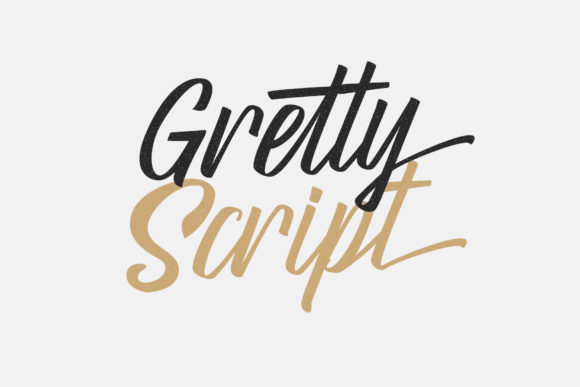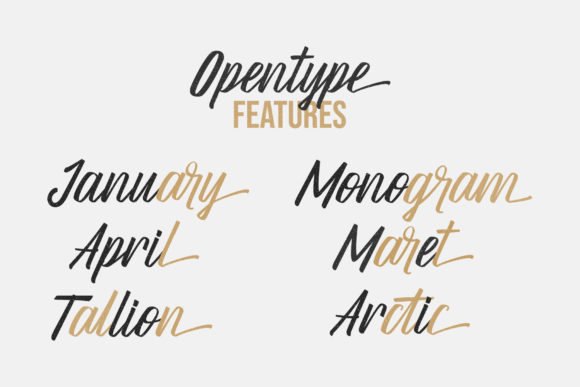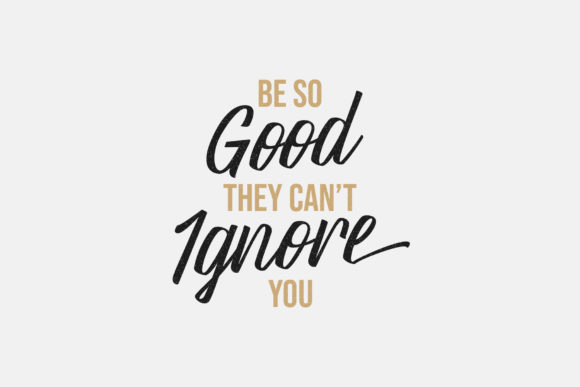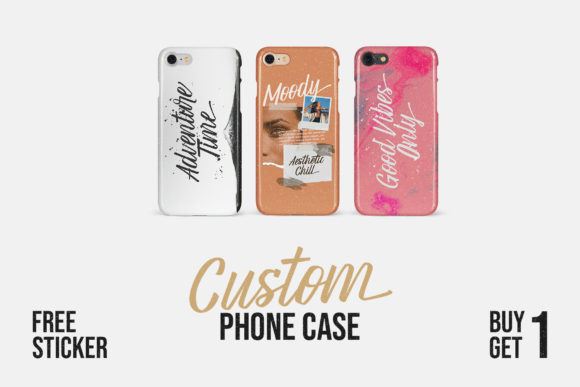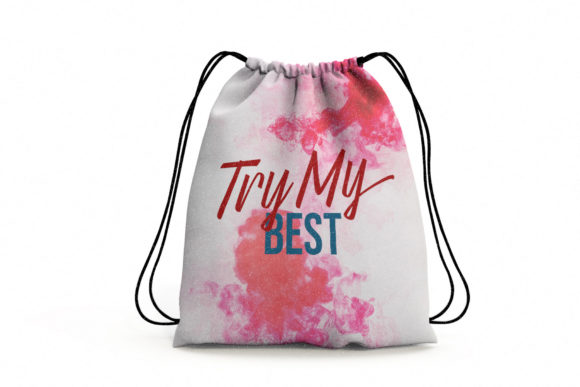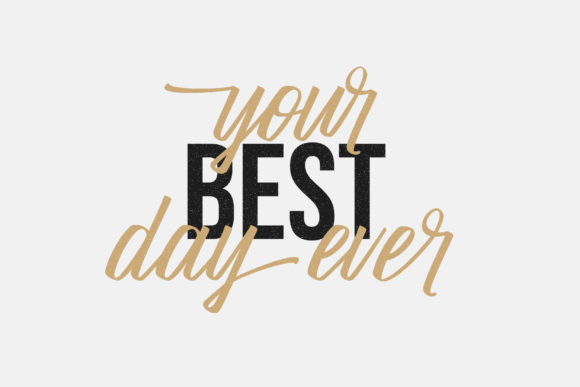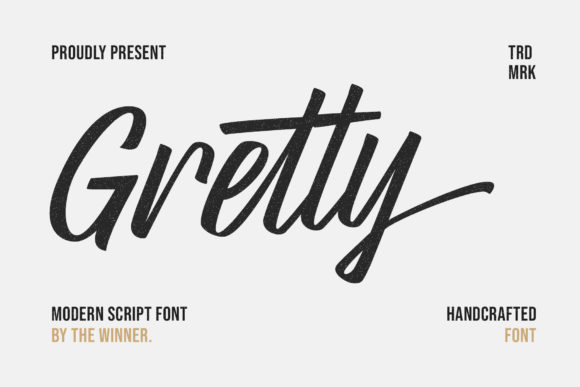
Introducing Gretty Script Font: Elevate Your Designs with Elegance
Are you on the hunt for a font that exudes elegance, sophistication, and a touch of uniqueness? Look no further than Gretty Script Font. This stunning script font is designed to make your designs stand out, whether you’re creating wedding cards, beautiful stationery art, eye-catching social media posts, or any other creative project.
The Story Behind Gretty Script Font
Gretty Script Font was created with the intention of producing a font that is both gorgeous and versatile. Its unique and neat style makes it perfect for a wide range of applications, from formal events to everyday design needs. The font’s spontaneous design ensures that it brings a fresh and modern touch to any project.
Key Features of Gretty Script Font
- Unique and Neat Style: Gretty Script Font boasts a distinctive style that sets it apart from other script fonts. Its neatness ensures readability, making it suitable for both headings and body text.
- Elegant and Sophisticated: The font’s elegant design makes it perfect for formal events such as weddings, anniversaries, and other celebrations.
- Versatile: Gretty Script Font is not limited to just one type of project. It can be used for wedding cards, stationery art, social media posts, and much more.
- Easy to Read: Despite its script nature, Gretty Script Font is clear and easy to read, making it a practical choice for designs that require a personal touch.
Uses of Gretty Script Font
Gretty Script Font’s versatility is one of its strongest assets. Here are some of the many ways you can use this beautiful font:
- Wedding Cards and Invitations: Add a touch of elegance to your wedding stationery with Gretty Script Font. It’s perfect for save-the-date cards, formal invitations, and wedding thank you notes.
- Stationery Art: Create beautiful and unique stationery art with Gretty Script Font. It’s ideal for bullet journaling, journal covers, and other creative projects.
- Social Media Posts: Make your social media posts stand out with Gretty Script Font. Use it to create eye-catching quotes, announcements, and promotional content.
- Branding and Packaging: For businesses looking for a font that conveys elegance and sophistication, Gretty Script Font is an excellent choice. It’s suitable for logos, product labels, and packaging designs.
Tips for Using Gretty Script Font
To get the most out of Gretty Script Font, consider the following tips:
- Pair with Complementary Fonts: For maximum impact, pair Gretty Script Font with complementary fonts that enhance its elegance and sophistication.
- Experiment with Colors: Gretty Script Font looks stunning in a variety of colors. Experiment with different hues to find the perfect match for your design.
- Play with Sizes: Don’t be afraid to play with different font sizes to create visual interest and hierarchy in your designs.
Gretty Script Font is a versatile and elegant font that can elevate your designs to new heights. Its unique and neat style makes it perfect for a wide range of applications, from formal events to everyday design needs. Whether you’re a designer, crafter, or simply someone who loves to create, Gretty Script Font is an excellent addition to your font library.